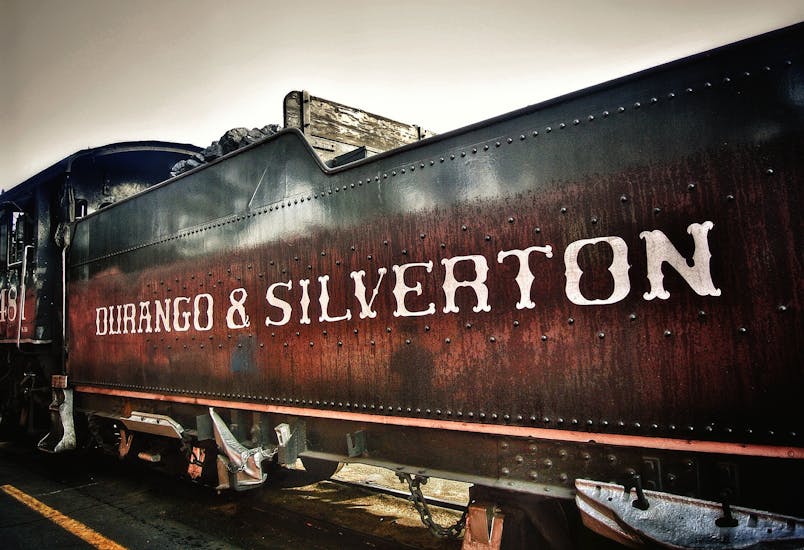
Western fonts offer a direct line to America’s frontier heritage, bringing character and authenticity to design projects.Free Western fonts are a go-to choice for capturing the rugged, frontier spirit in graphic design.Here are some top free Western fonts to enhance your designs, such as Bronco, Texas Tango, and Rio Grande.Experiment with different combinations and let the typography enhance your message. Happy designing!